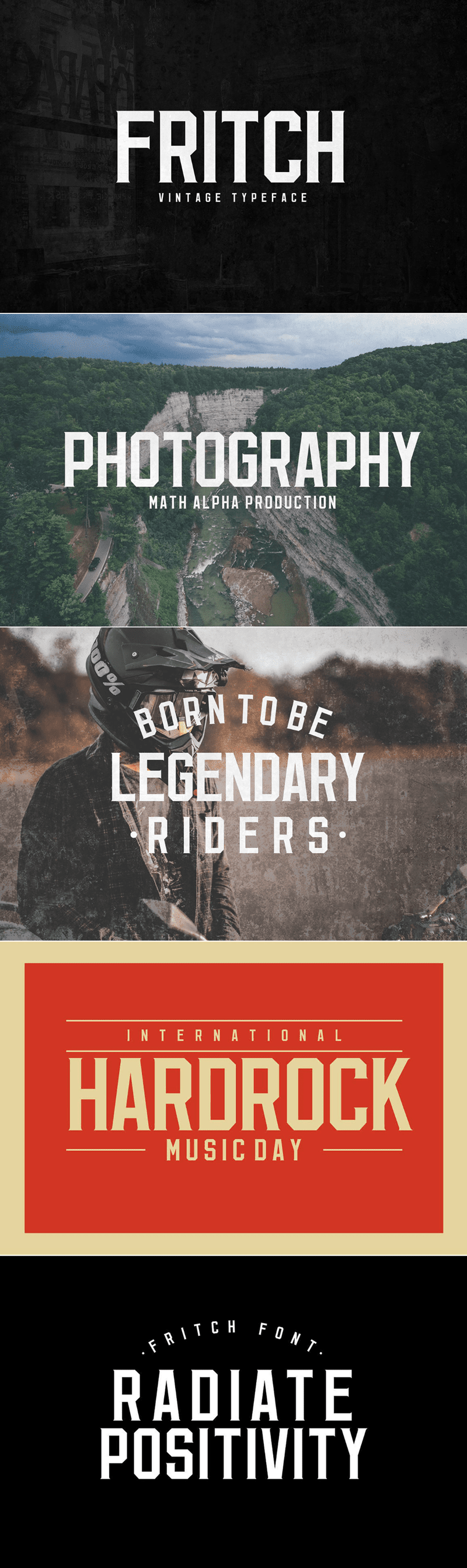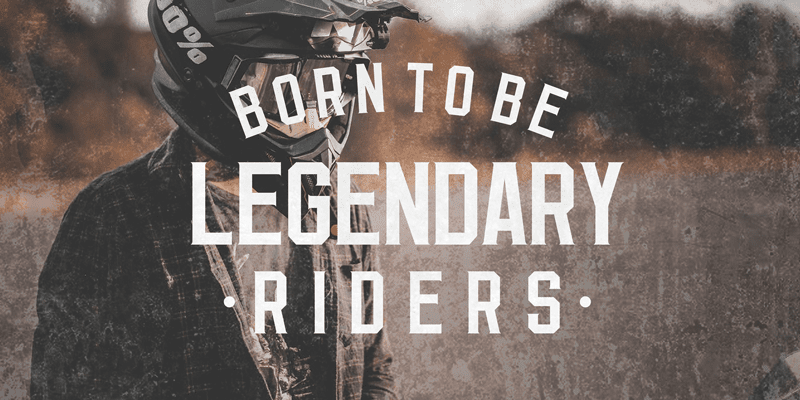
Fritch – Vintage Typeface
Check out a carefully crafted vintage typeface featuring an elongated & condensed body that is suitable for book covers, magazines, posters, and more. Find out more Vintage Fonts.